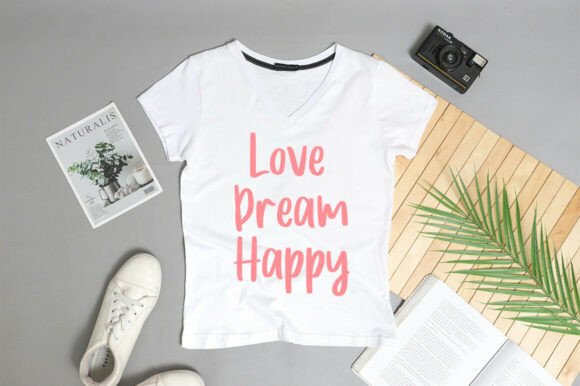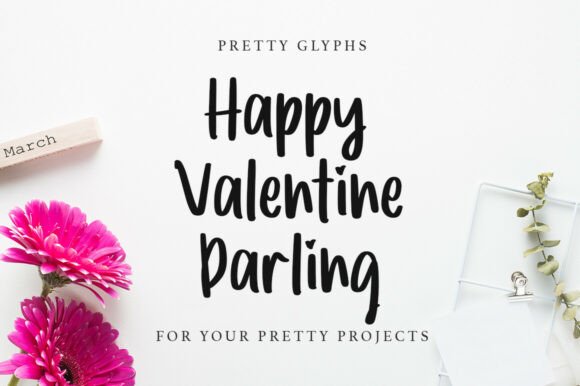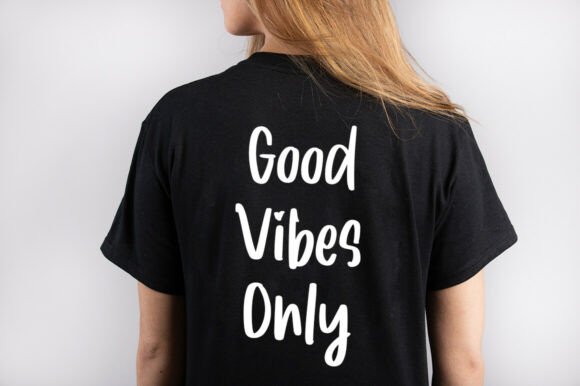
Introduction to Birthday Brush Font
Celebrate life’s special moments with the Birthday Brush font, a joyful and energetic typeface that brings a hand-painted feel to your designs.
This Birthday Brush typeface features casual, textured strokes that give it an authentic, DIY spirit perfect for birthday cards, party banners, and event flyers With its playful bounce and approachable character, the Birthday Brush font is an excellent choice for family-oriented branding and social media graphics that need a warm, personal touch.
Key Features of Birthday Brush Font
Why Choose Birthday Brush Font?
Birthday Brush Font offers exceptional quality and versatility, making it a valuable addition to your design toolkit. Whether you’re creating for personal projects or commercial use, Birthday Brush Font delivers professional results.